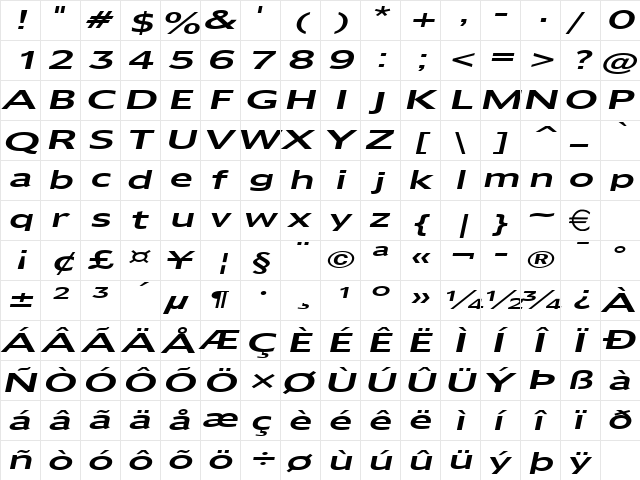
AdamsExtended Italic
Design Context for AdamsExtended Typeface
AdamsExtended is a composed and adaptable typeface that performs quietly and consistently across a wide range of design contexts. Its italic angle brings a sense of urgency and motion to the letterforms.
Pro Tip: Use AdamsExtended for emphasis, pull quotes, and subheadings where its slanted energy can add rhythm to the layout.